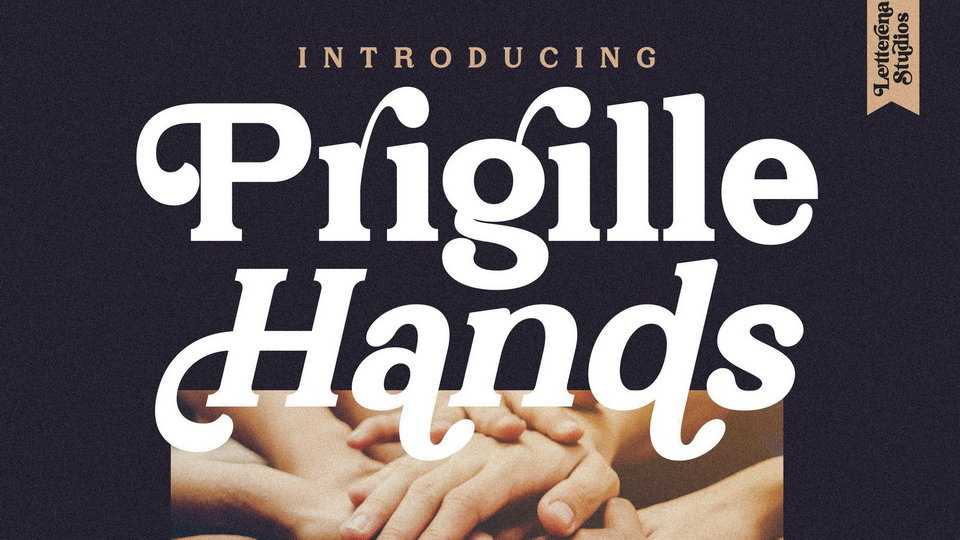
Download Prigille Hands font, a bold, trendy and versatile serif typeface. Prigille Hands can easily be added to a variety of design ideas, both formal and informal.
Designer: Letterena Studios